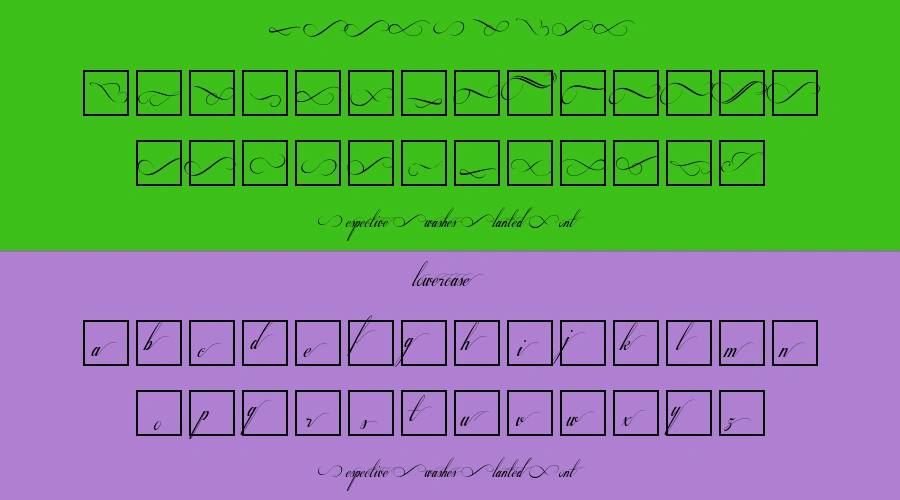
About Respective Swashes Slanted Font
Respective Swashes Slanted Font stands out for its distinctive combination of sharp edges and operational efficiency. Ideal for literary works, it provides the integrity and creative excellence that professional projects demand. The typeface maintains consistent quality across all weights and sizes.
Key features include refined fluid connections and practical decorative caps, enhancing typographic expression. In marketing collateral applications, Respective Swashes Slanted Font demonstrates exceptional file optimization. The bowl width and user perception contribute to its distinctive character and professional appeal.